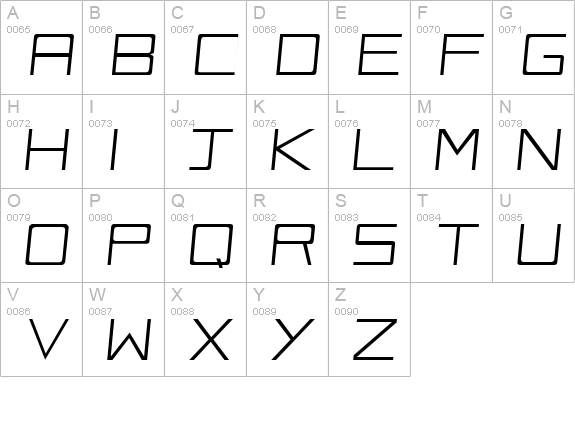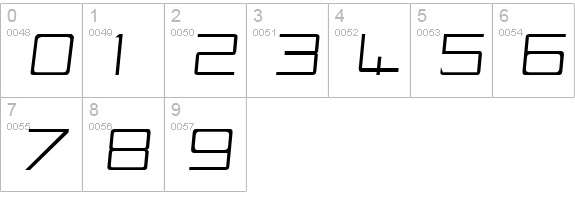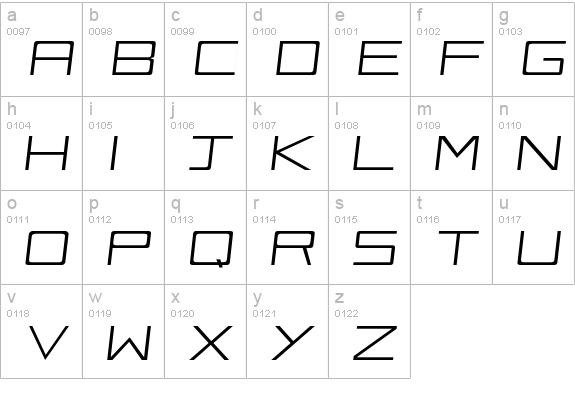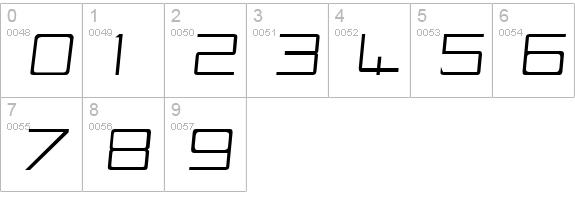
Introducing Vox-Slanted, a captivating and bold font designed to make a statement. With its sleek and modern slanted design, Vox-Slanted effortlessly captures attention and adds a touch of sophistication to any creative project. This font boasts a unique blend of sharp edges and gentle curves, creating a harmonious balance that exudes confidence and style. Its versatile nature allows it to be used in a variety of contexts, from eye-catching headlines to elegant logos and everything in between. But what truly sets Vox-Slanted apart is its accessibility. It is not only visually stunning, but also freely available to download at FontsMarket.com. This means that designers, artists, and entrepreneurs alike can unleash their creativity without any constraints, making Vox-Slanted the perfect choice for those seeking a font that combines aesthetic appeal with affordability. Whether you're designing a sleek website, creating captivating social media graphics, or crafting an attention-grabbing print advertisement, Vox-Slanted is sure to elevate your project to new heights. Its clean lines and distinct slant will leave a lasting impression on your audience, making your message stand out in a sea of ordinary typography. Embrace the power of Vox-Slanted and let its bold and modern design speak volumes. Download this remarkable font for free at FontsMarket.com, and unlock a world of possibilities for your next creative endeavor.